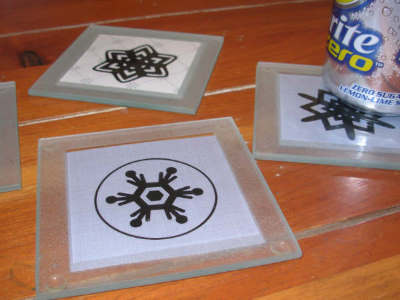
| We all
have little obsessions when it comes to things in our home
and one of mine is coasters. Beverages are fine in the
family room but they have to be on a coaster. This month
for creative corner I've made seasonal coasters, perfect
for winter and they were so easy!
Clear glass coaster for photos and decorating are available
at your local craft or scrapbook store (I used a coaster
set from Making Memories). Each coaster holds a 3” square
and what you do with that 3” is up to you! Slip in
a photo to remember loved ones, print up a favorite quote
or saying, or use one that it already formatted from a
Lettering Delights Quote Sheet or check out the new DB
Roman Philosophy for a great quote that can be yours with
a simple keystroke.
I used DoodleBats with
a winter theme to create four different snowflakes, each
printed on a different blue plain or patterned paper. I
used DB
Circles - 'Tis
the Season and DB
Snowflakes with each character in
about 160 point type in my word processing software.
Next month I could switch them out for red hearts and
then green clovers in March. Have fun and keep those wood
tables in perfect condition at the same time! |
outside after a storm to enjoy frosty
fun in the
freshly fallen snow. Or you can keep warm (and |
creative)
by bringing the frosty fun inside with Cheryl's
Frosty Fun Bundle. This pair of all new and absolutely
darling frosty fun alphabets has another perfect pair of
matching Journaling Delight clip art sets, including photo
and title boxes, corners, tags, adornments and a topper.